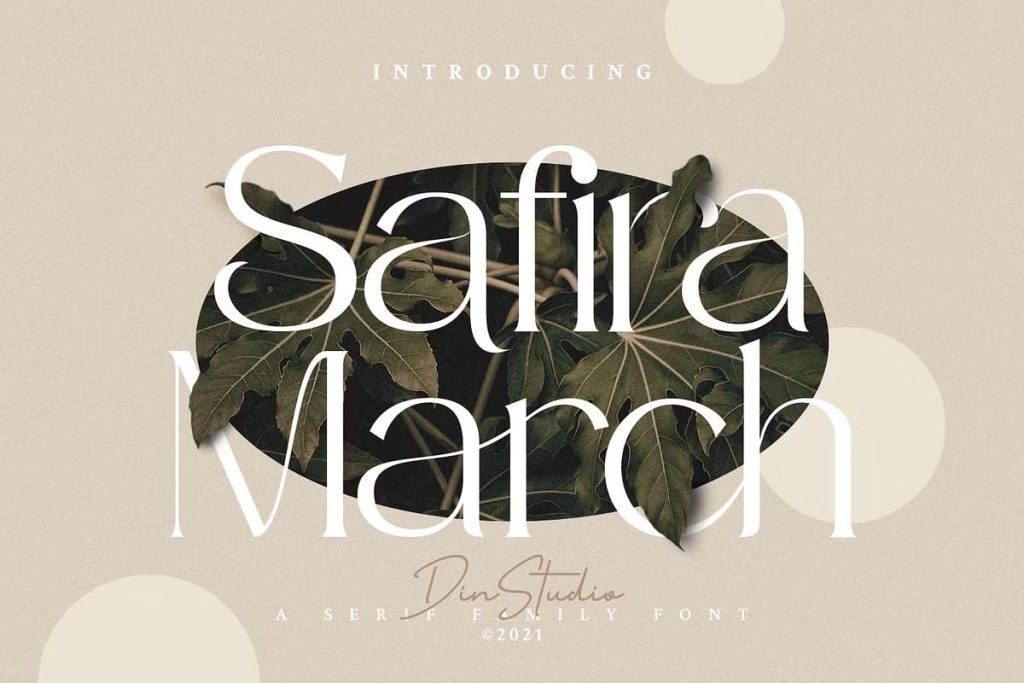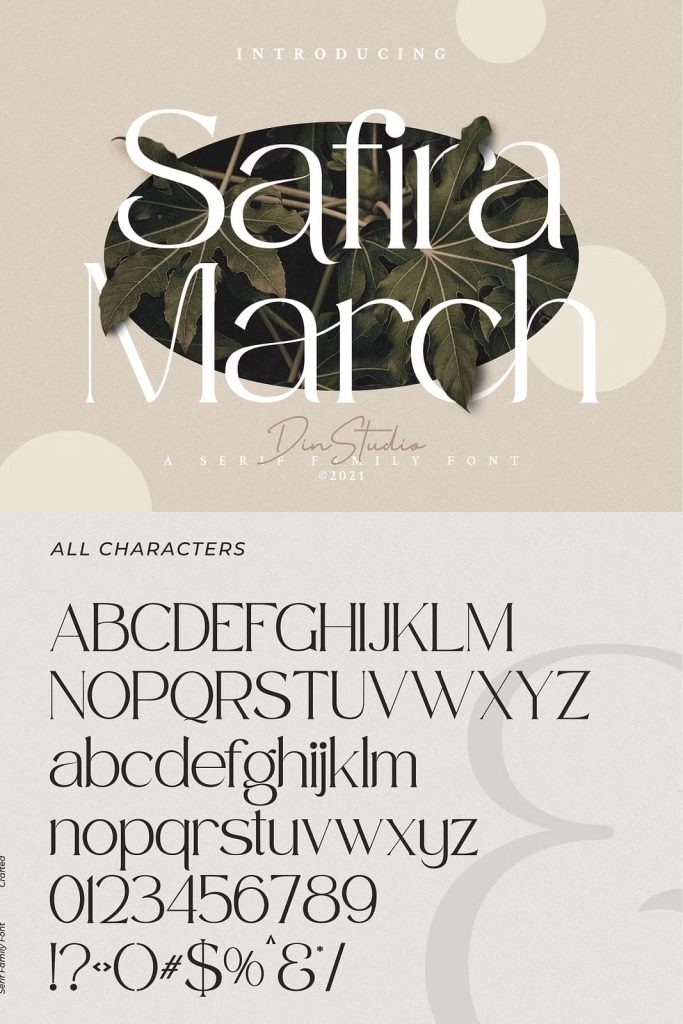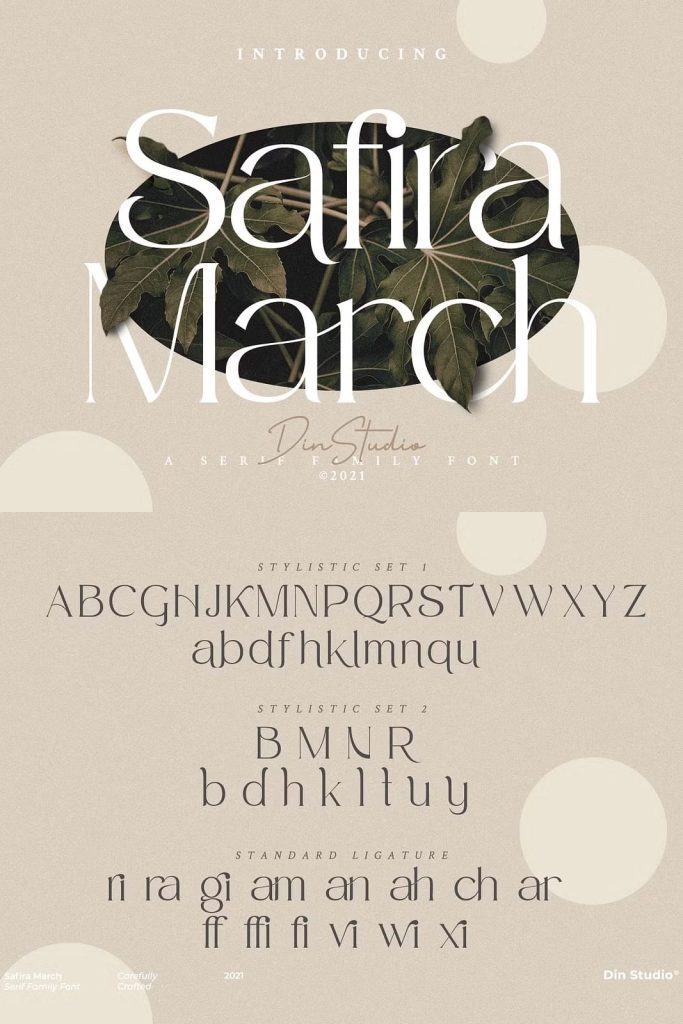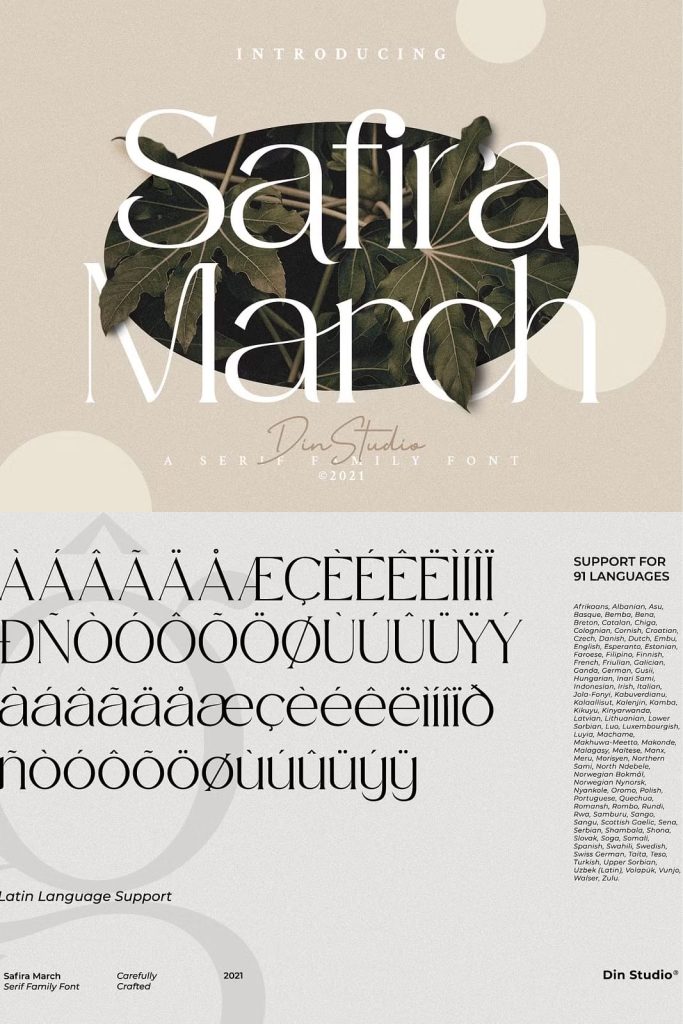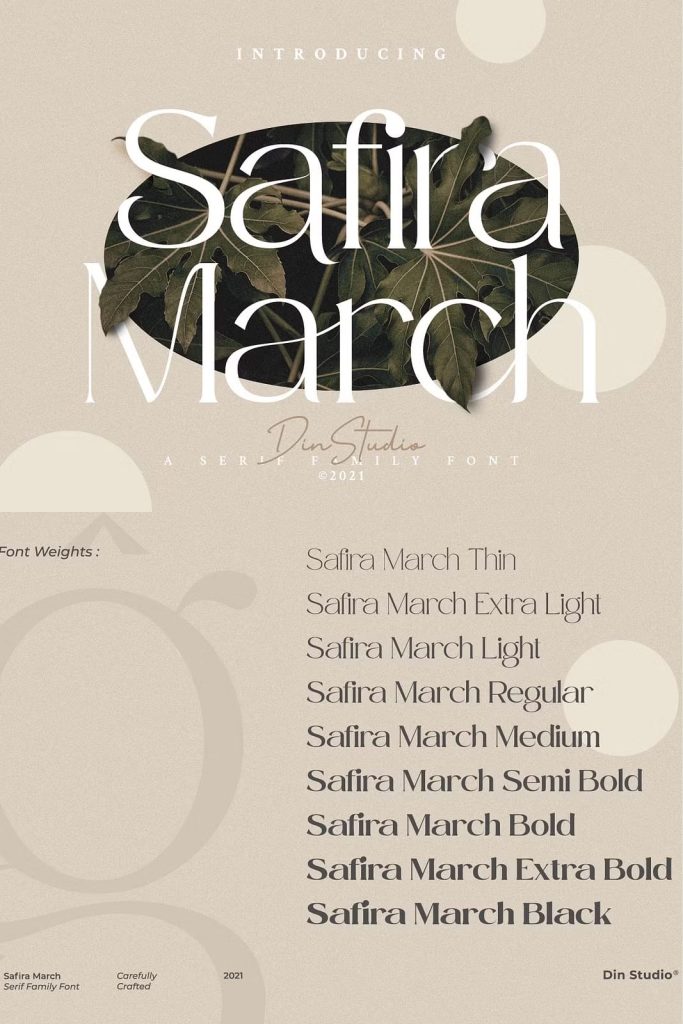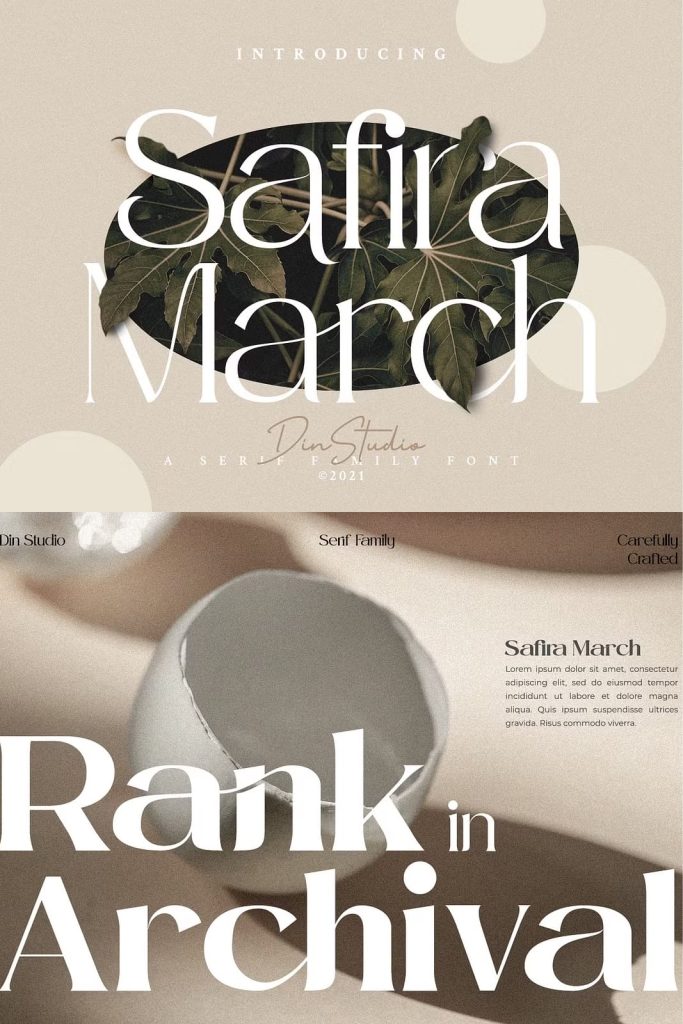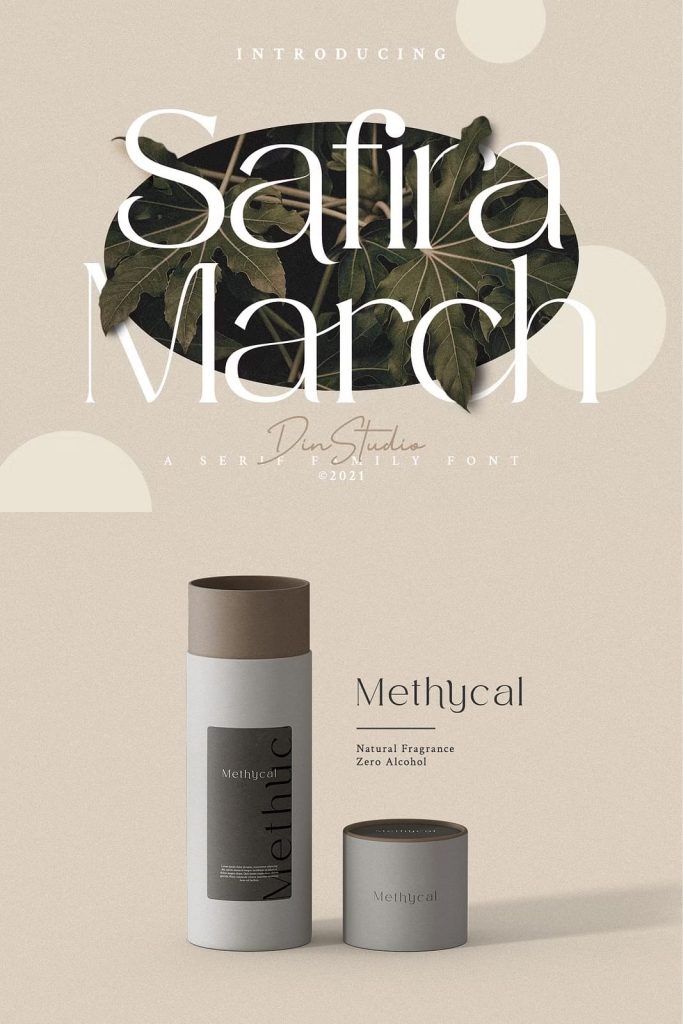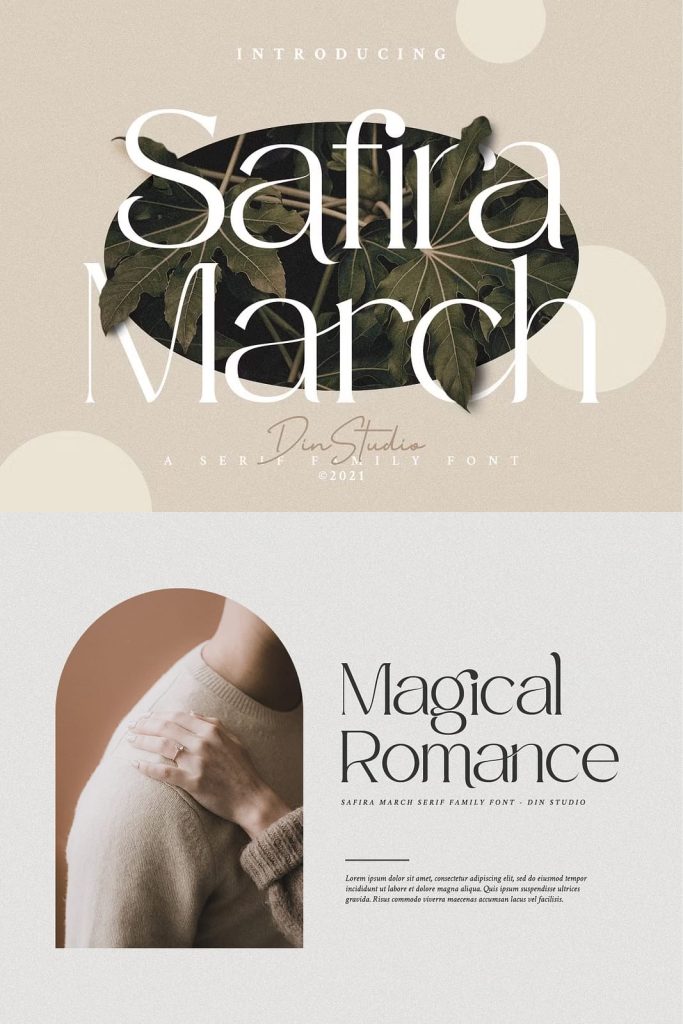
Hoping to make bold and statement projects? Trying to impress your audiences or costumers? How about a mix of tropical, style, and elegance? Then check this one out.
Introducing Safira March- A Serif Font Family
It is a gorgeous font will engage your audience and make your promotions and projects stand out. It comes with 9 different weights of font. Bring your branding to life and add a touch of modernity and style with Safira March. Use it for headings, logos, business cards, printed quotes, invitations of all sorts, cards, packaging, and your website or social media branding.